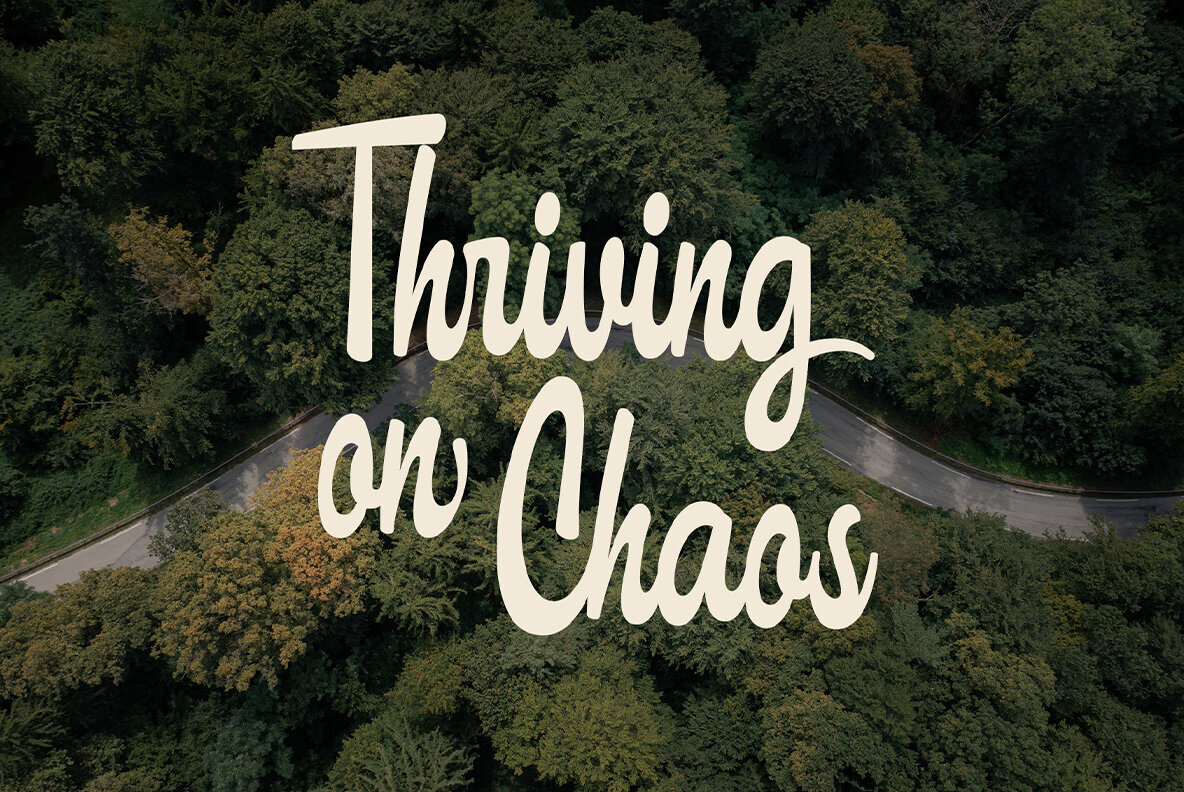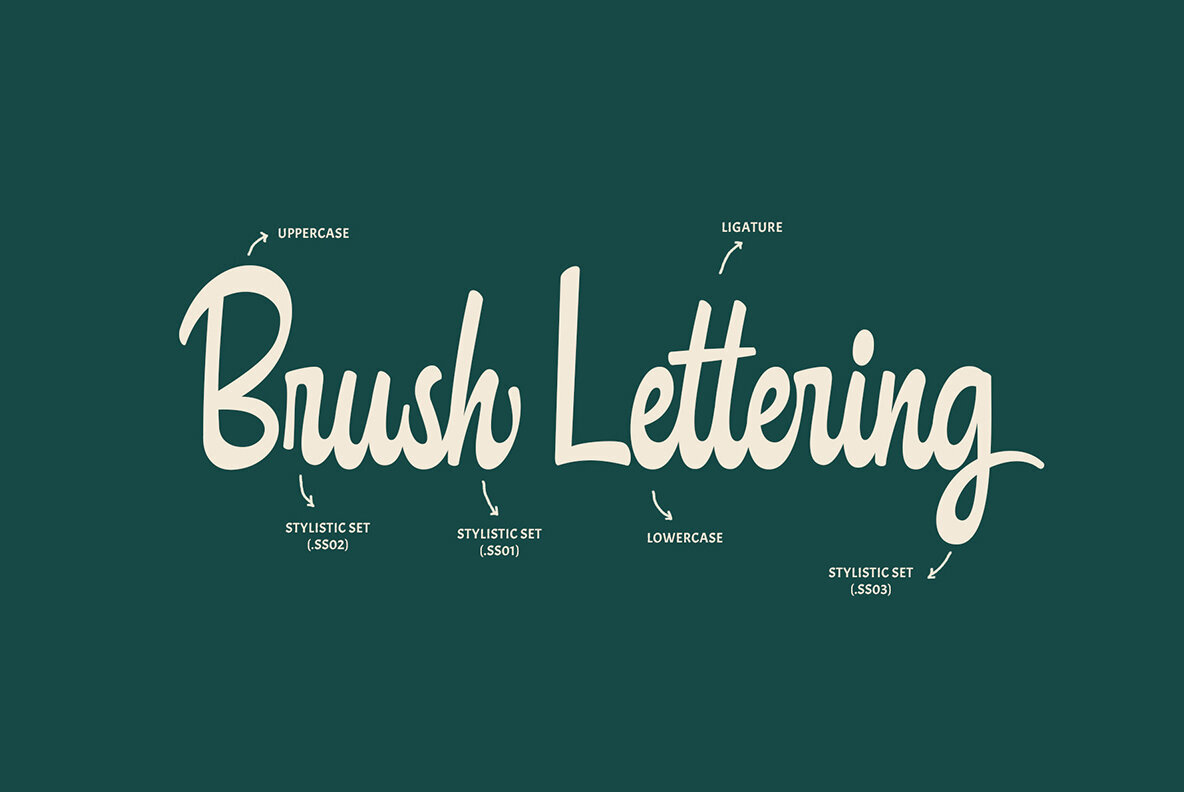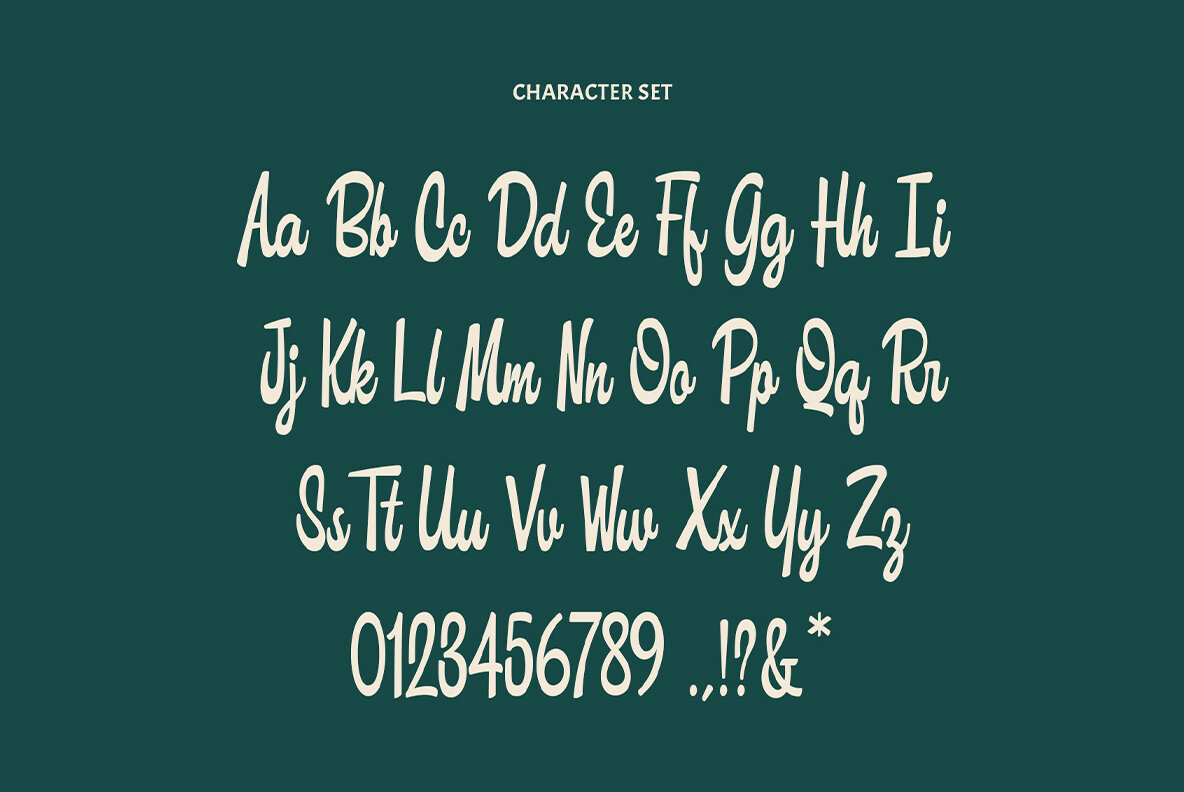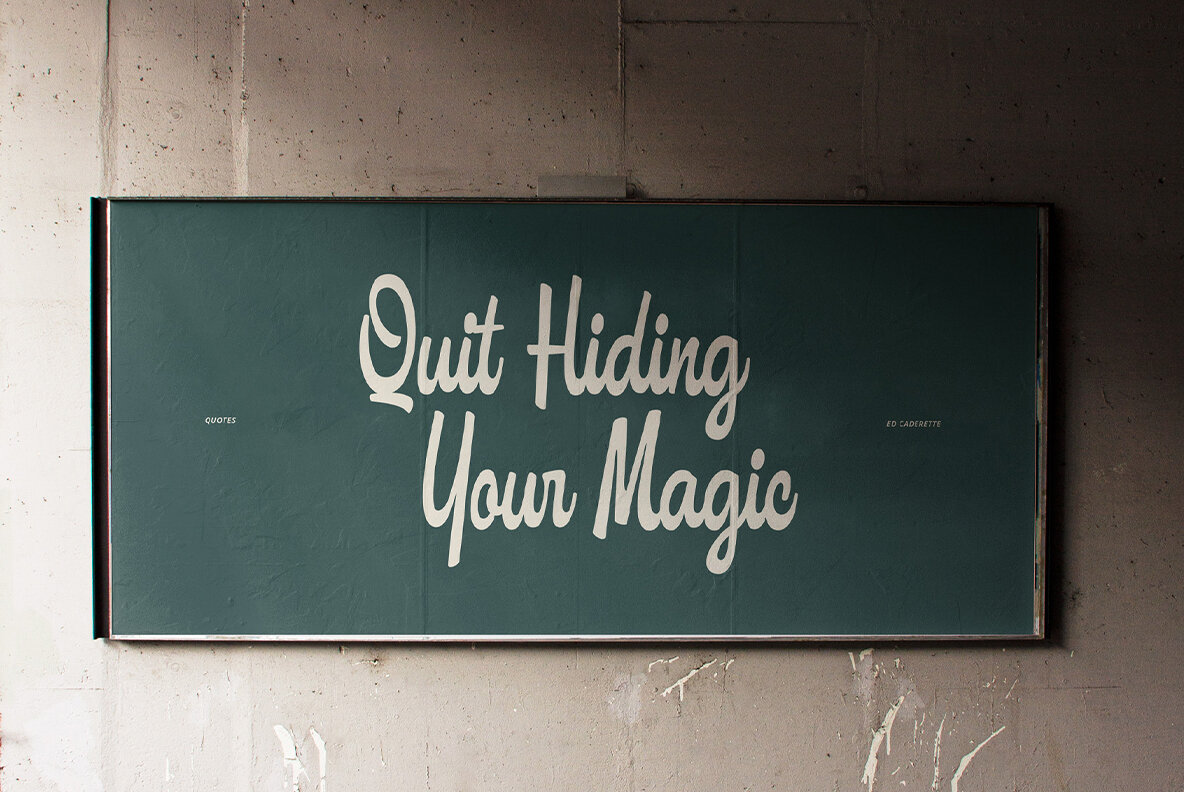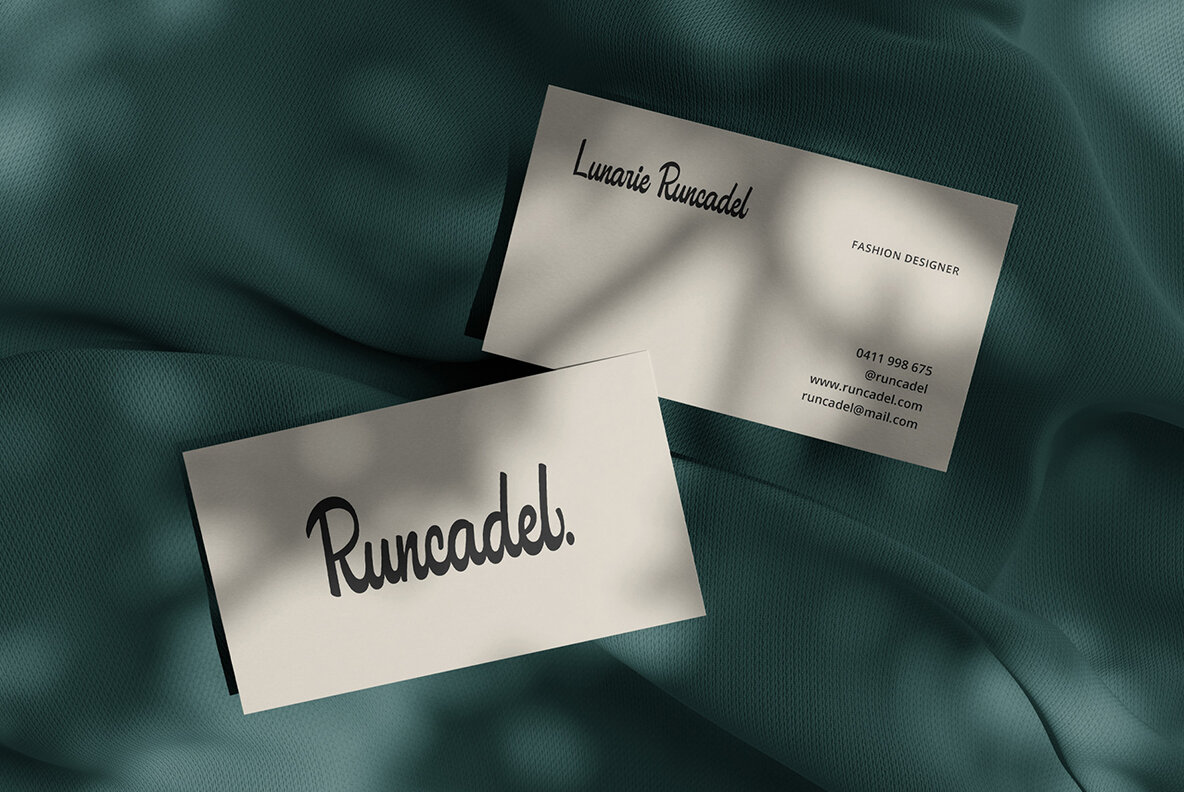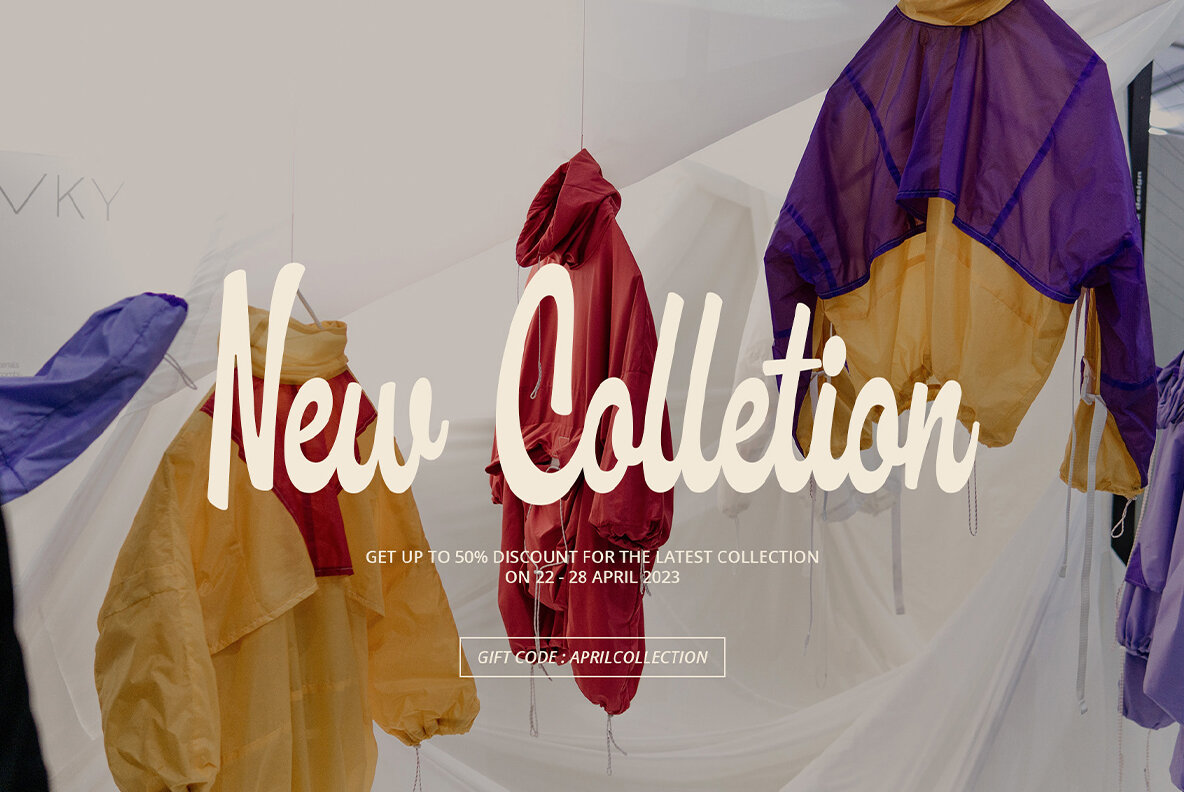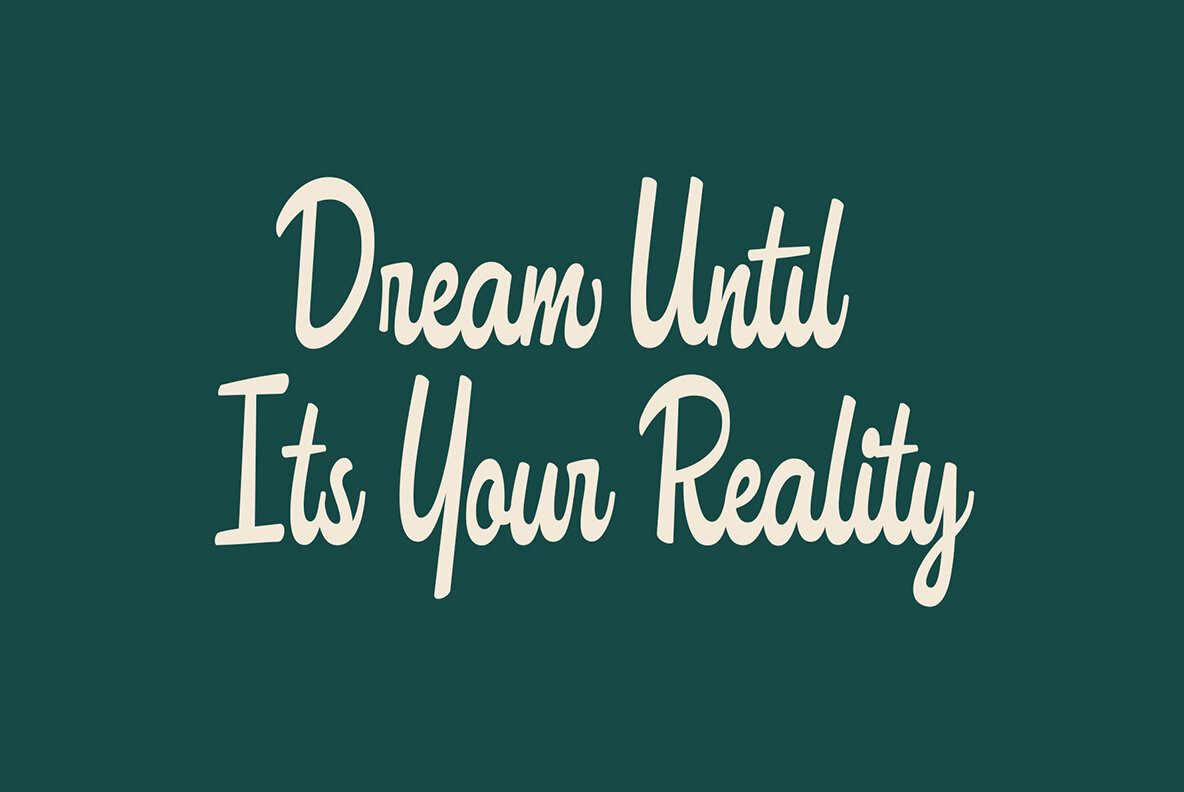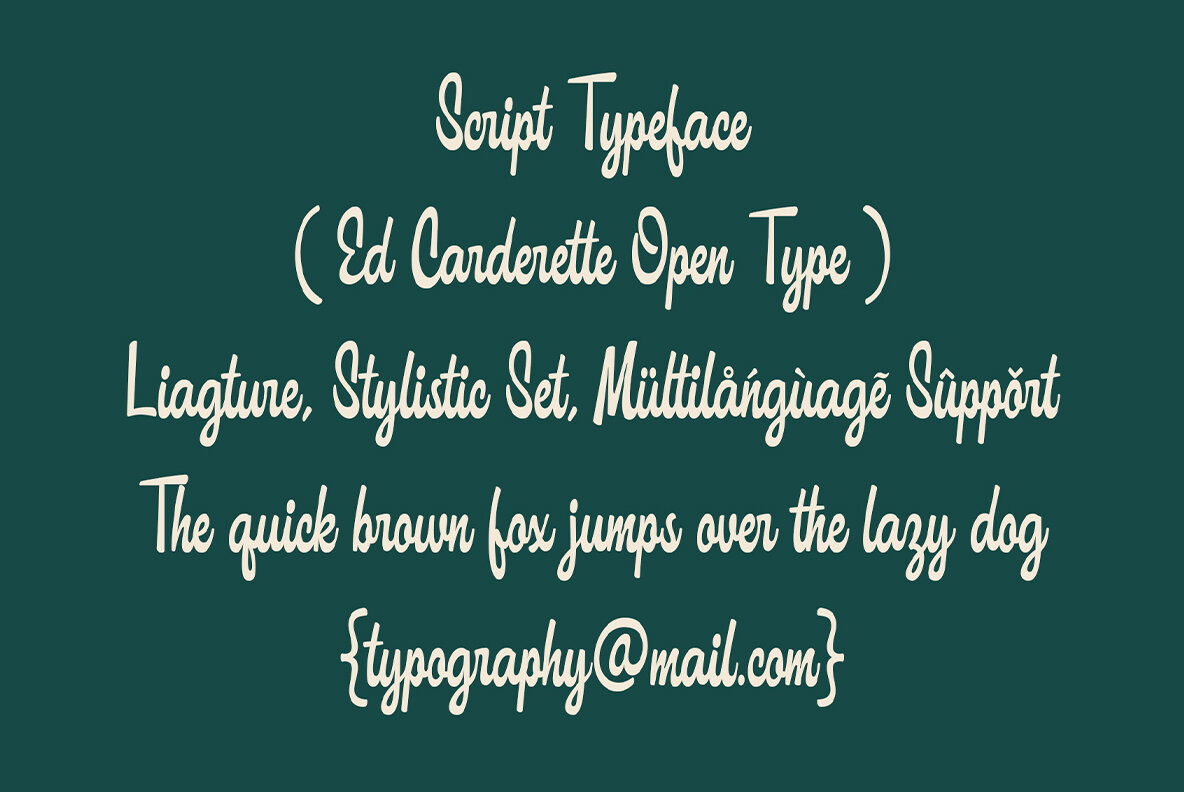
ED Caderette Font
ED Caderette Regular
ED Caderette captures the essence of a classic casual script font, characterized by its marker-like appearance. Enhanced by ligatures, stylistic sets, and multilingual support, this font becomes a versatile asset for your creative endeavors. Ideal for a wide array of projects, ED Caderette effortlessly elevates logotypes, printed quotes, invitations, cards, product packaging, headers, letterheads, apparel, web design, magazines, and books. With its relaxed yet sophisticated charm, ED Caderette brings a touch of warmth and personality to your creations, allowing them to resonate with your audience on a deeper level. Explore the myriad possibilities of ED Caderette and let your designs speak with an unmistakable air of casual elegance.